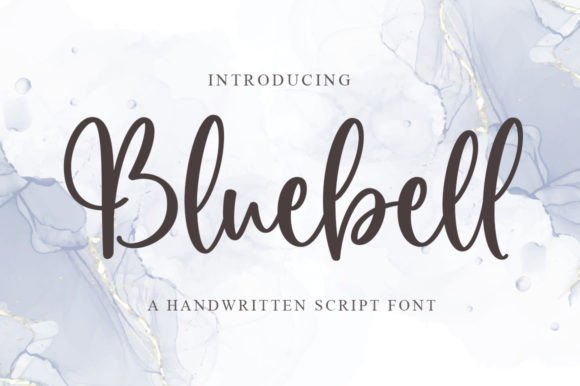
Unleash the captivating allure of Bluebell Font, a script masterpiece that exudes sophistication and grace. Designed by the renowned Graphix Line Studio, Bluebell is not just a font; it's an exquisite work of art that transforms your words into breathtaking expressions of elegance.
With its delicate strokes and refined curves, Bluebell dances across your designs, adding a touch of timeless beauty to every project. Its stylish alternates and ligatures are like an artist's brushstrokes, allowing you to paint your words with creativity and flair.
As a PUA-encoded font, Bluebell grants you effortless access to a world of glyphs and swashes. Unleash your imagination and explore endless possibilities, crafting designs that captivate and inspire.
Picture the allure of a wedding invitation adorned with Bluebell's graceful script, enveloping your words in an aura of romance and elegance. Envision the charm of a handwritten note, where Bluebell's delicate strokes dance across the page, conveying heartfelt messages with a touch of intimacy.
Bluebell is more than just a font; it's an artistic journey that transforms the ordinary into the extraordinary. Whether you're designing logos, branding materials, or creating heartfelt messages, Bluebell elevates your words, leaving a lasting impression on all who encounter them.